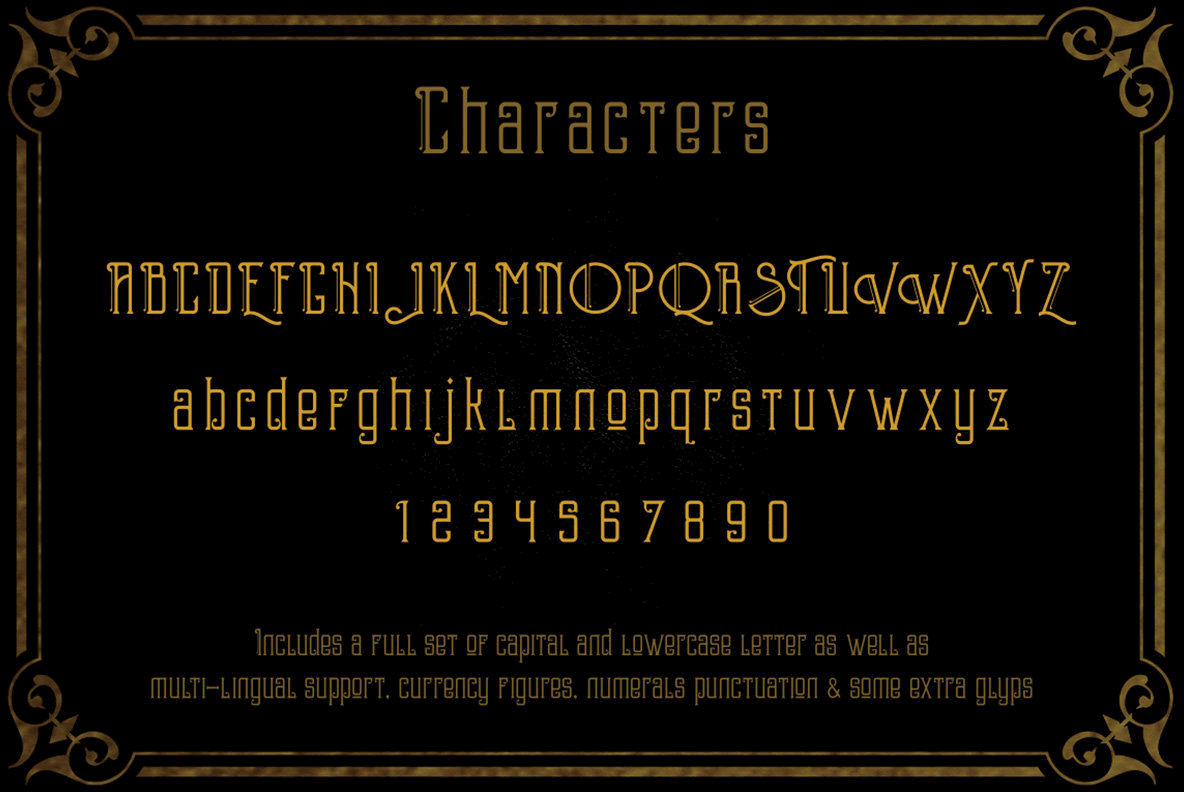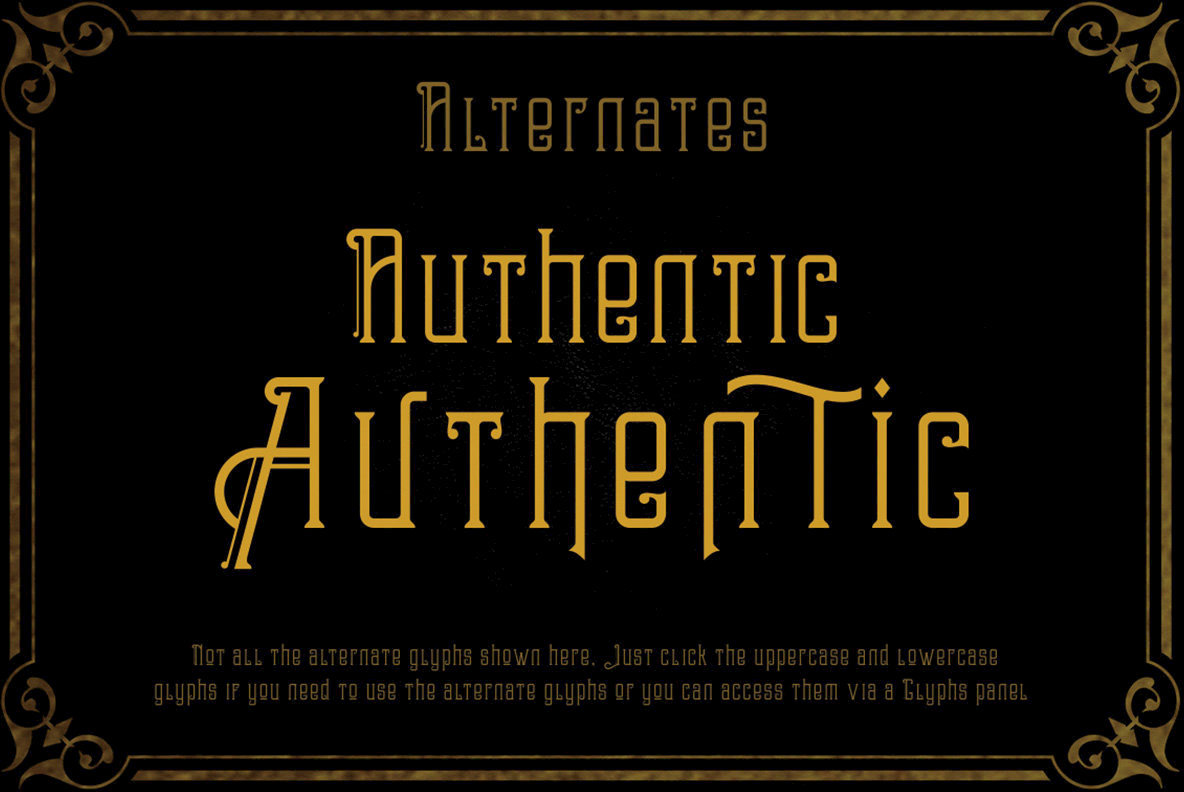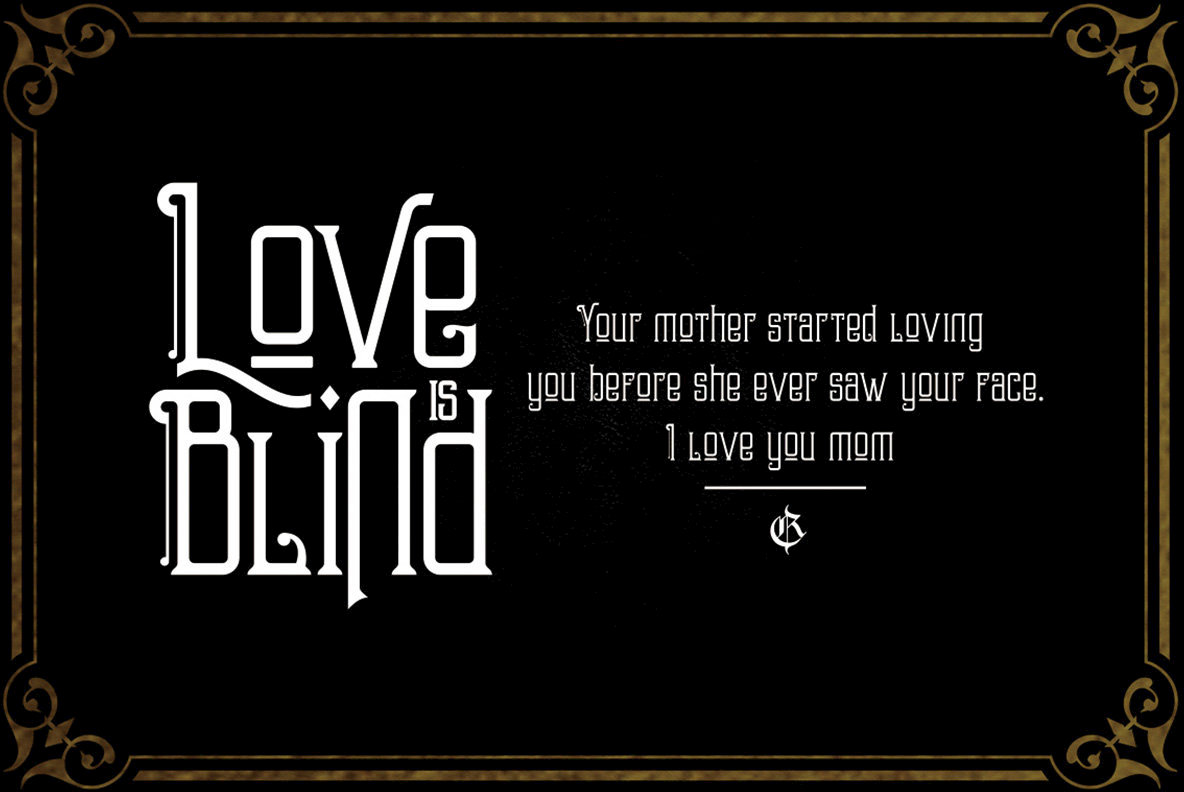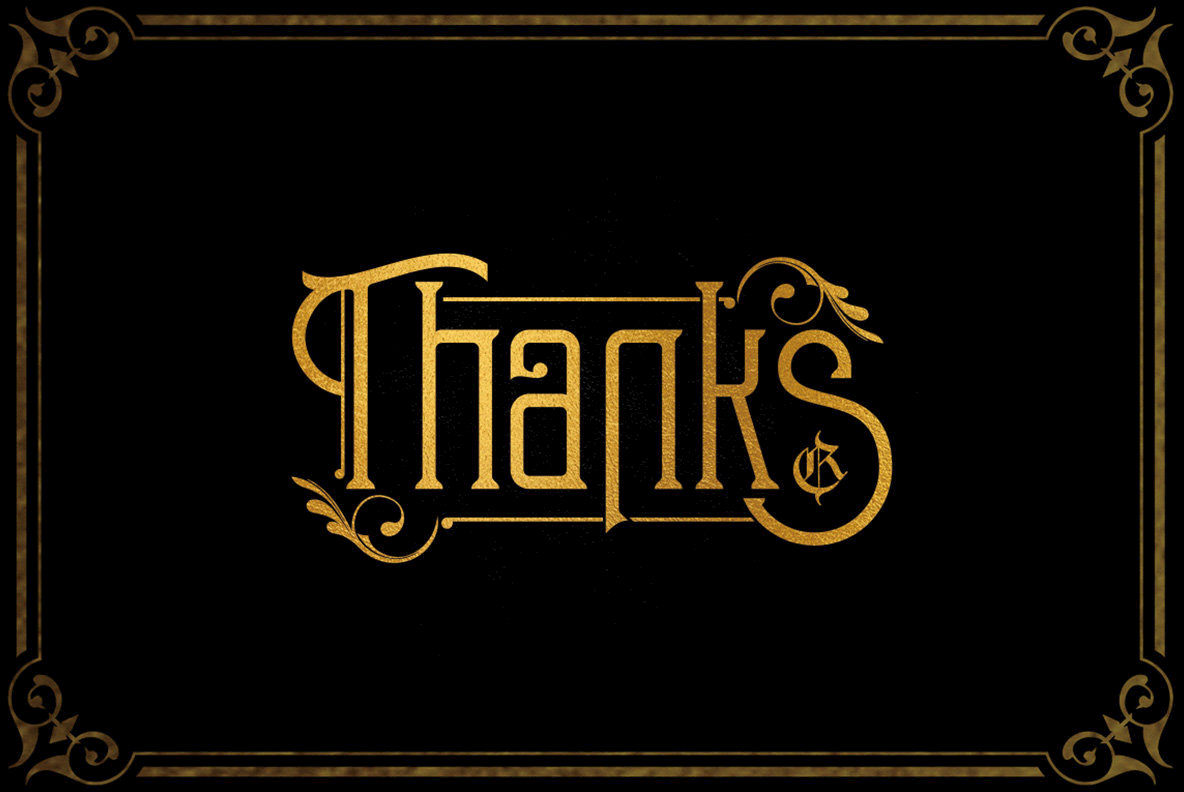
Briliants 1
Briliants is font designed by Rvq that contains an elegant and vintage character set. Briliants contains a full set of capital and lowercase letters, as well as multilingual support, currency figures, numerals, punctuation & some extra glyphs.